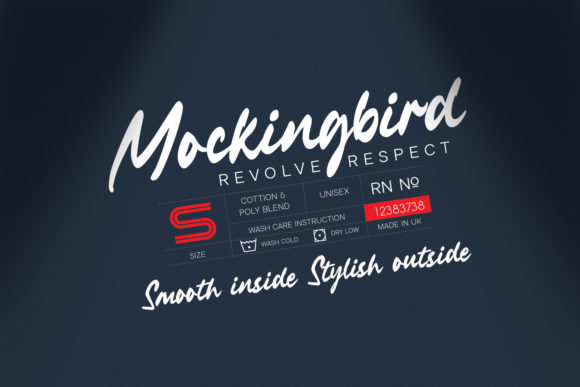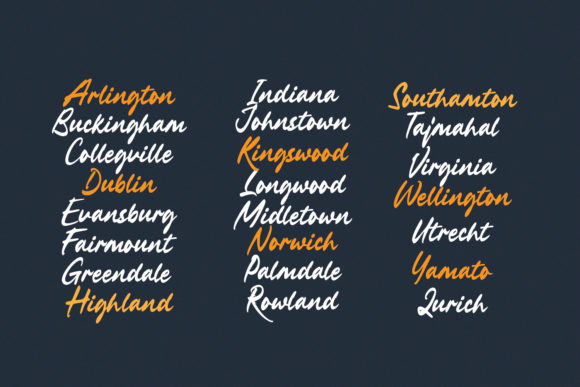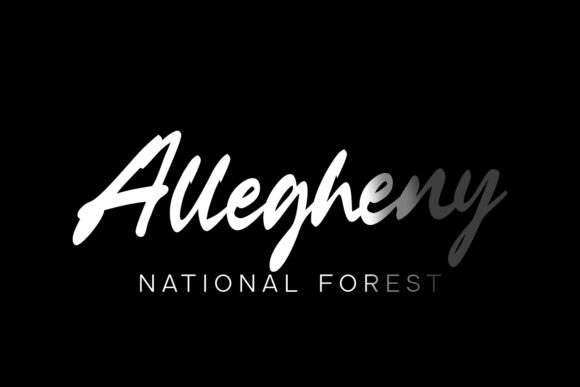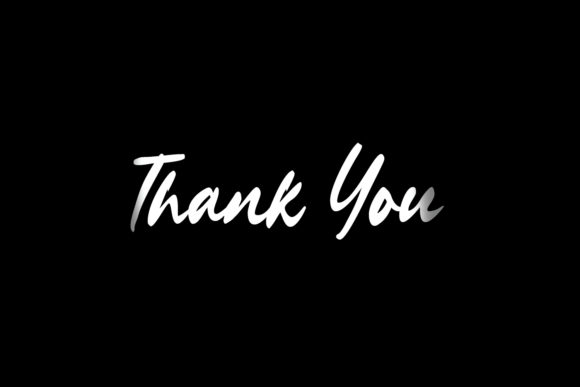
About Longbeach Font
Longbeach is a casual yet distinct brushed handwritten font. It maintains its classy calligraphic influences while feeling contemporary and fresh. Fall in love with it and bring your projects to the highest levels!